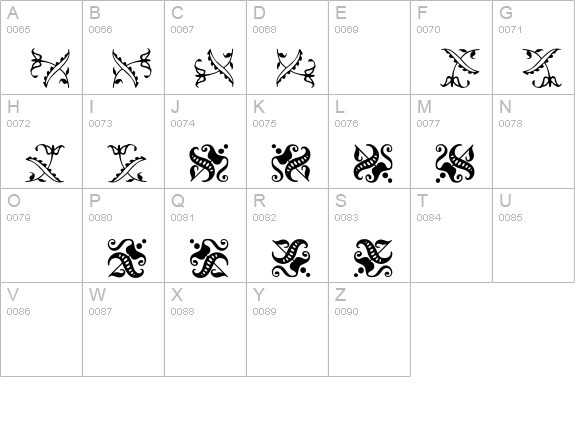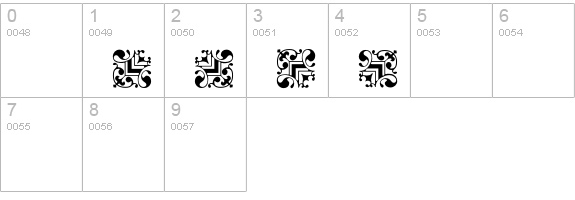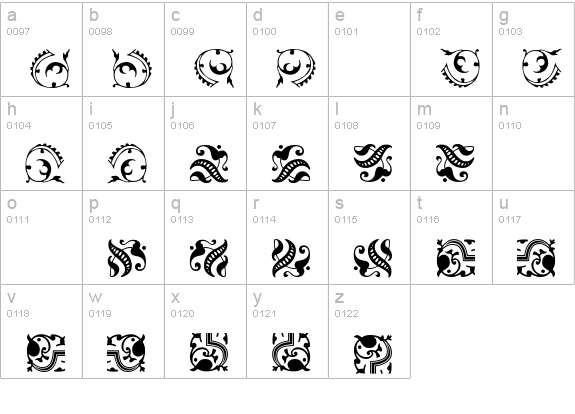
FleuronsOne Font Details
FleuronsOne is a beautifully crafted font that adds a touch of elegance and sophistication to any design project. This ornate typeface features intricate floral-inspired embellishments that bring a sense of charm and grace to your text. With its delicate details and graceful curves, FleuronsOne is perfect for creating stunning invitations, wedding stationery, and other special projects. What makes FleuronsOne even more appealing is that it is available for free download at FontsMarket.com. This means you can easily access and use this stunning font without any cost. Whether you're a professional designer or a casual enthusiast, FleuronsOne offers a versatile and eye-catching option for your creative endeavors. Don't miss out on the opportunity to enhance your designs with this exquisite font - download FleuronsOne today and let your creativity flourish!